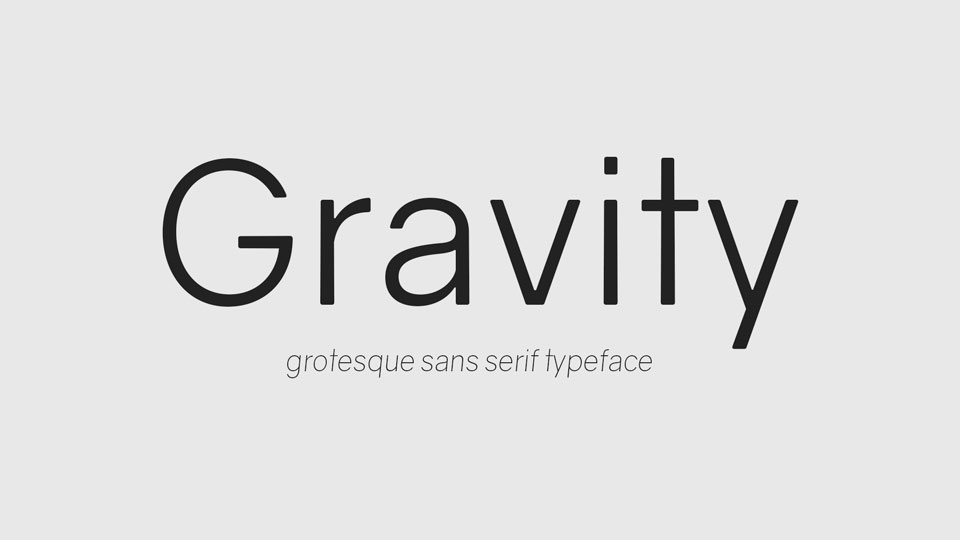
Download Gravity typeface, a grotesque sans serif font family in five weights plus italics, designed with a unique balance and large counters. The typeface uses the “gravity” as a distinctive, functional and aesthetic feature of the font.